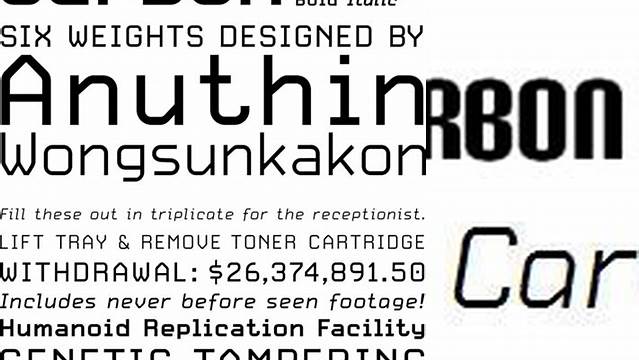
Hey guys! Looking for that sleek, industrial vibe for your next project? The T.26 Carbon font might just be your answer! This font is known for its modern, slightly techy feel, making it perfect for everything from logos and branding to posters and website design. But where do you find it, and how do you download it for free? Let's dive into the world of T.26 Carbon font and explore how you can get your hands on it, legally and safely.
What is T.26 Carbon Font?
Before we jump into the download details, let's quickly understand what makes T.26 Carbon font so special. This font family typically features a geometric design with clean lines, often inspired by industrial or technological aesthetics. The specific characteristics can vary depending on the version or designer's interpretation, but you'll generally find a typeface that's both modern and highly legible. Using T.26 Carbon font in your design can instantly add a touch of sophistication and a contemporary edge. Think of it as the little black dress of fonts – versatile and always in style. It’s the kind of font that whispers “cutting-edge” without shouting it, making it a great choice for projects that need to project innovation and a forward-thinking approach.
T.26 Carbon Font Styles and Weights
The versatility of T.26 Carbon font extends to its various styles and weights. You might find versions ranging from thin and light to bold and heavy, offering a spectrum of options for different design needs. Some versions may also include italic or condensed styles, further expanding its usability. Imagine using a light weight for body text to create a sleek and modern feel, and then switching to a bold weight for headings to make a strong statement. This flexibility makes T.26 Carbon font a valuable asset in any designer's toolkit. Understanding the different weights and styles available can help you choose the perfect variation for your project, ensuring that your typography aligns perfectly with your overall design vision.
Alternatives to T.26 Carbon Font
Can’t find a free or suitable version of T.26 Carbon font? No worries! The world of typography is vast and filled with excellent alternatives. Fonts with similar geometric or industrial aesthetics can provide a similar feel. Look for typefaces like Montserrat, Bebas Neue, or Futura. These fonts share the clean lines and modern appeal of T.26 Carbon font, making them great substitutes. Exploring font pairings can also lead to exciting discoveries. Try combining a different sans-serif font for headings with a complementary serif font for body text. The possibilities are endless! Don't be afraid to experiment and find a combination that perfectly captures the mood and message of your design.
Using T.26 Carbon Font in Graphic Design
Alright, let's get creative! T.26 Carbon font is a fantastic choice for a wide range of graphic design projects. Its modern, geometric style makes it perfect for logos, branding materials, posters, and website headers. Think about how you can use its clean lines to create a strong visual impact. Pair it with bold colors for a contemporary look, or use it with a minimalist design for a touch of understated elegance. Consider the message you want to convey and how the T.26 Carbon font can help you achieve that. Whether you’re designing a cutting-edge tech company's logo or a stylish event poster, this font can add a touch of sophistication and professionalism to your work.
Pairing T.26 Carbon Font with Other Fonts
The secret to great typography often lies in font pairings. While T.26 Carbon font is beautiful on its own, combining it with other fonts can create a more dynamic and visually appealing design. A classic approach is to pair a sans-serif font like T.26 Carbon font with a serif font for body text. This creates a nice contrast and improves readability. Some popular serif pairings include Times New Roman, Garamond, or Georgia. Alternatively, you can pair T.26 Carbon font with another sans-serif font that has a different personality. For example, a slightly rounded sans-serif can soften the sharp edges of T.26 Carbon font, creating a more balanced look. Experiment with different combinations and see what works best for your project. The key is to find fonts that complement each other without competing for attention.
Final Thoughts on T.26 Carbon Font Free Download
So, there you have it! A comprehensive guide to T.26 Carbon font, including how to find it, use it, and explore alternatives. Remember, while the lure of a free download is strong, always prioritize safe and legal sources. Understand the licensing terms, and don't be afraid to experiment with different font pairings and design styles. T.26 Carbon font is a fantastic tool for any designer's arsenal, and with a little knowledge and creativity, you can use it to create stunning visuals that captivate your audience. Happy designing, guys!